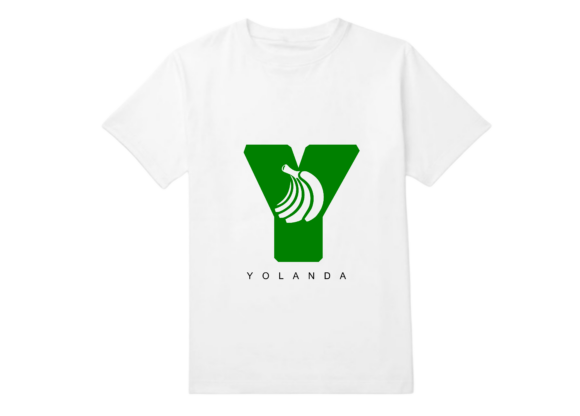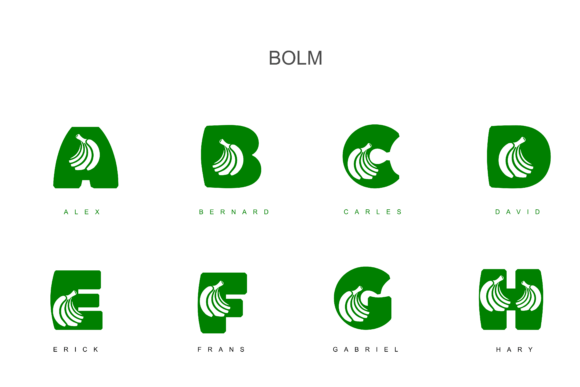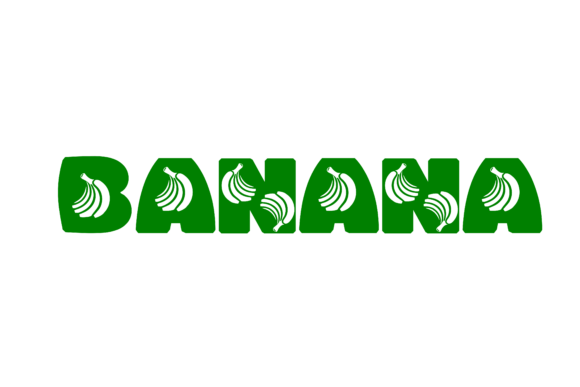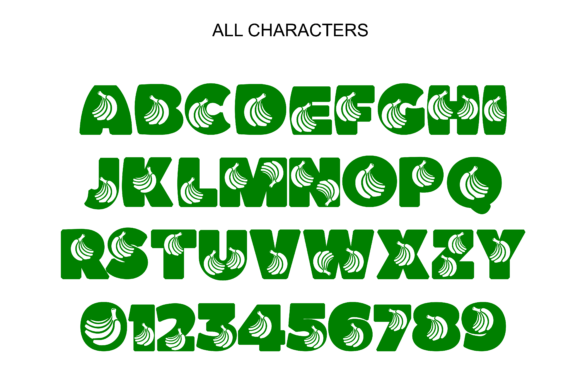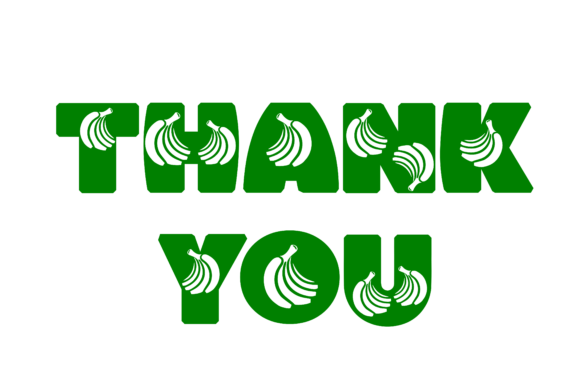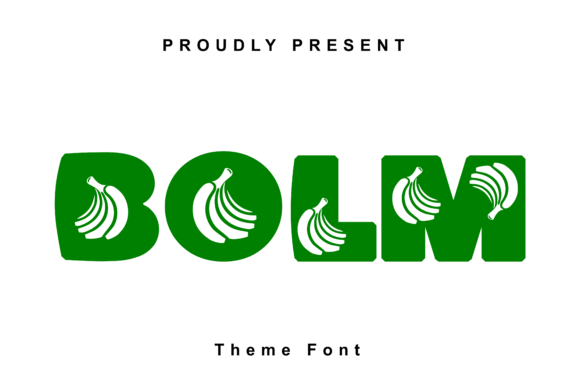
Discover the Enchanting World of Bolm Font: Where Playfulness Meets Typography
Imagine a typeface that embodies the carefree spirit of youth, where each letter is a masterpiece of playful nostalgia and abstract beauty. Welcome to the captivating realm of Bolm Font, a riveting design that redefines the intersection of typography and creativity. In this article, we’ll explore the unique characteristics of Bolm, its applications, and why it’s an essential tool for designers, crafters, and anyone looking to infuse their work with a touch of youthful vitality.
The Genesis of Bolm: A Symphony of Shape and Ingenuity
Bolm Font is more than just a typeface; it’s an experience. Crafted with meticulous attention to detail, Bolm brings together a harmonious blend of shape and ingenuity, resulting in a truly unique visual identity. Each letter is carefully designed to evoke a sense of innocence and jubilation, making it perfect for projects that require a dash of playfulness and whimsy.
Unleashing Creativity with Bolm: A Versatile Typeface for Diverse Applications
One of the most significant advantages of Bolm Font is its versatility. Whether you’re working on interactive educational materials, charming children’s books, or vibrant branding messages, Bolm effortlessly enriches your designs with its captivating charm. Its adaptability makes it an essential tool for:
- Interactive educational materials: Bolm’s playful and engaging design makes it perfect for creating interactive learning materials that cater to a younger audience.
- Children’s books: The typeface’s whimsical allure and abstract beauty bring stories to life, making it an excellent choice for children’s book publishers.
- Vibrant branding messages: Bolm’s unique blend of shape and ingenuity adds a touch of youthful vitality to branding messages, helping businesses connect with their target audience.
The Hypnotic Simplicity of Bolm: A Designer’s Delight
Bolm Font’s simplicity is, in fact, one of its most striking features. The typeface’s clean lines, rounded edges, and balanced proportions create a visually appealing design that’s both elegant and playful. This hypnotic simplicity makes Bolm an excellent choice for designers and crafters looking to:
- Create captivating visual displays
- Develop engaging and interactive content
- Add a touch of personality to their designs
Why Bolm Font Stands Out in the World of Typography
In a world where typography plays a crucial role in shaping brand identities and visual communications, Bolm Font stands out for its:
- Unique blend of shape and ingenuity
- Playful nostalgia and abstract beauty
- Versatility and adaptability across diverse applications
- Hypnotic simplicity and visual appeal
Getting Started with Bolm Font: Tips and Tricks for Designers and Crafters
Ready to experience the captivating charm of Bolm Font? Here are some tips to get you started:
- Experiment with different colors and textures to enhance Bolm’s visual appeal
- Pair Bolm with complementary typefaces to create visually striking contrasts
- Use Bolm’s playful design to add a touch of personality to your projects
Conclusion: Unlocking the Full Potential of Bolm Font
In conclusion, Bolm Font is a game-changer for designers, crafters, and anyone looking to infuse their work with a touch of youthful vitality. Its captivating charm, playful nostalgia, and abstract beauty make it an essential tool for a range of creative pursuits. By surrendering to the hypnotic simplicity of Bolm, you’ll unlock a world of creative possibilities, turning typical letters into remarkable displays of typographic art.